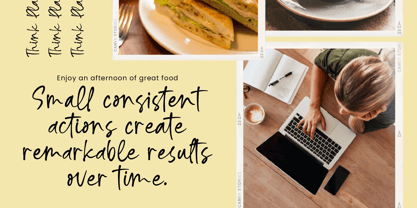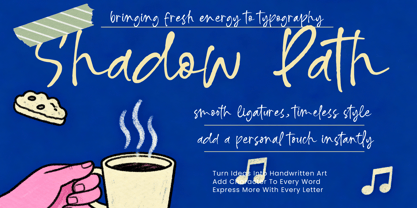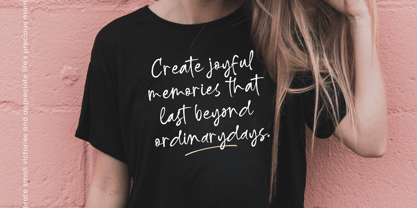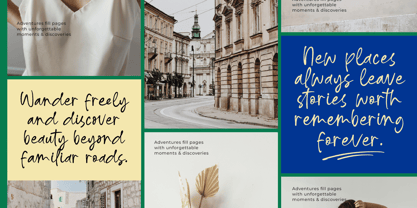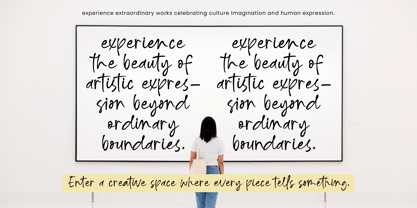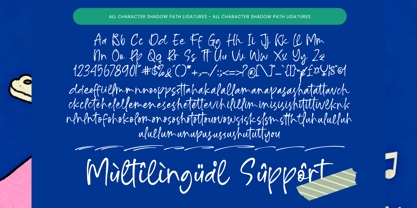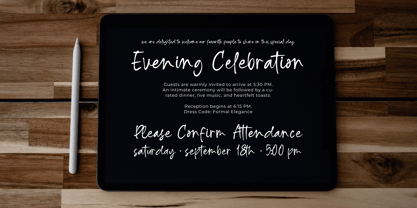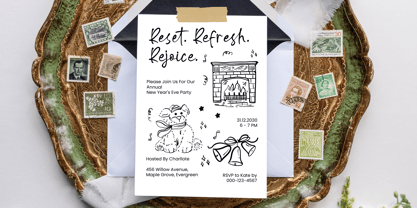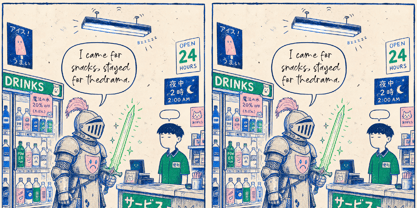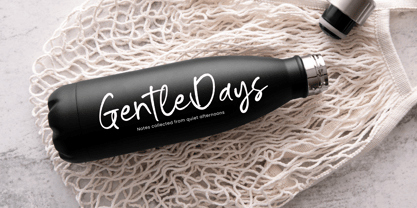
Shadow Path
by Letterena Studios
The Shadow Path Font Family was designed by Heru Utama Putra and published by Letterena Studios. Shadow Path contains 2 styles and family package options. More about this family
Shadow Path - Rough Handwritten Font
Elevate your creative vision with the raw energy of Shadow Path - Rough Handwritten Font, a typeface designed to infuse your designs with authentic personality and artistic flair. This premium script captures the essence of spontaneous penmanship, offering a hand-drawn aesthetic that feels both intimate and professional. With its unique textures and dynamic flow, it transforms standard text into a striking visual statement, ensuring your brand stands out in a crowded digital landscape.